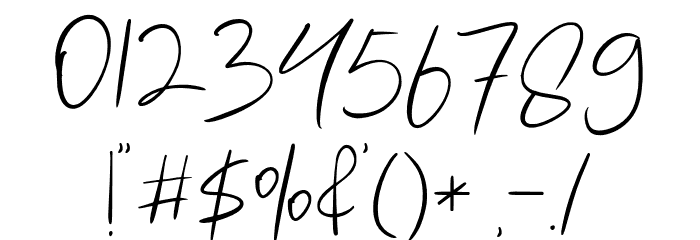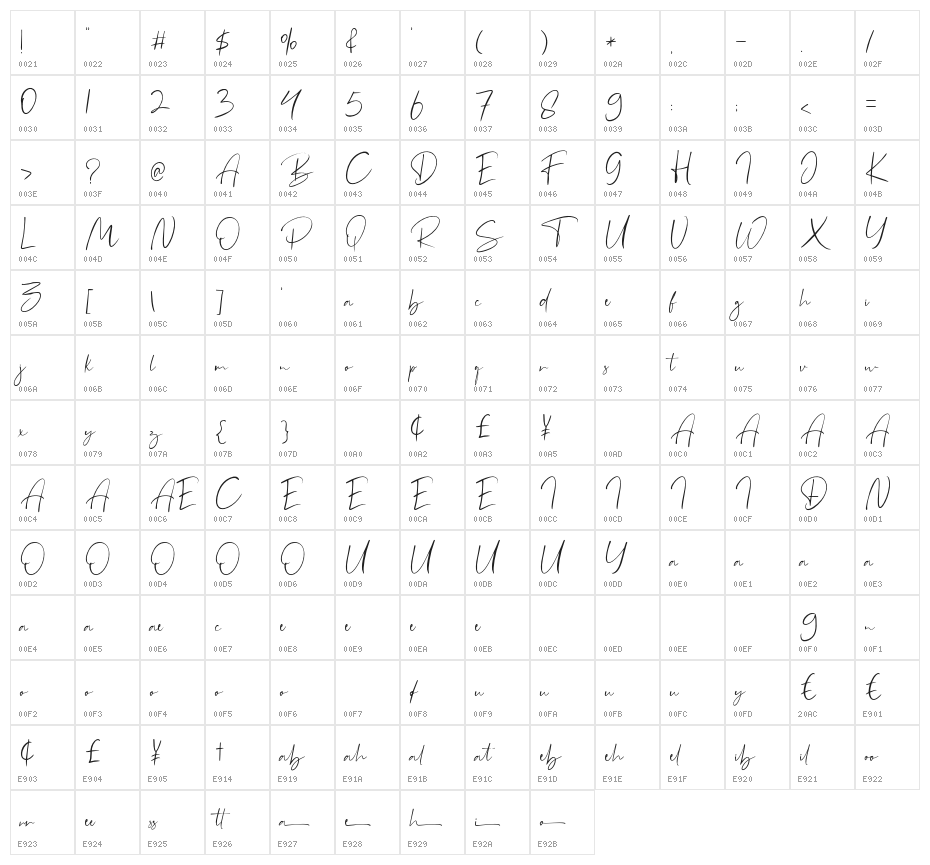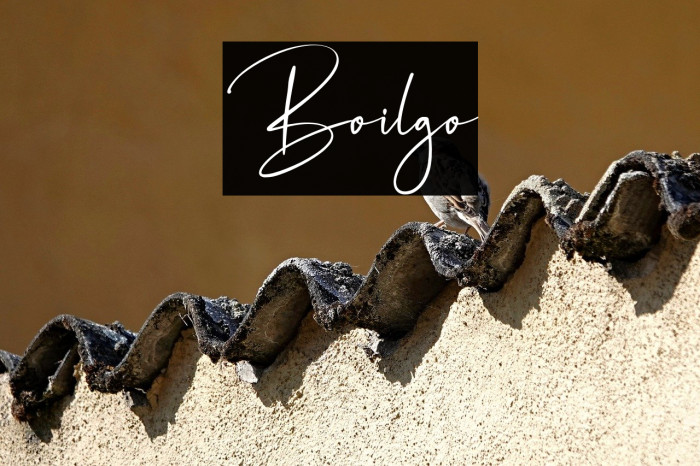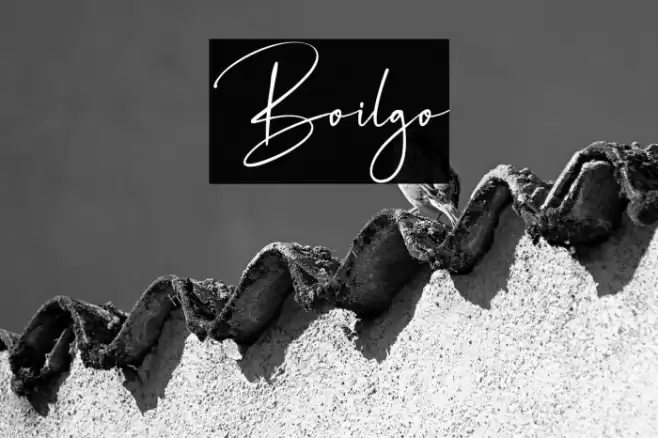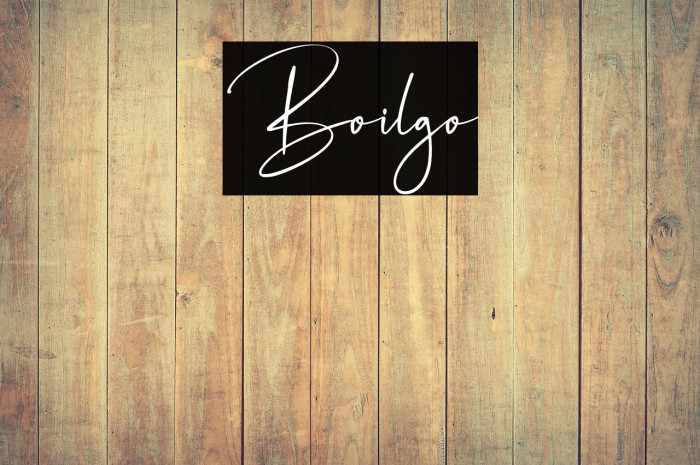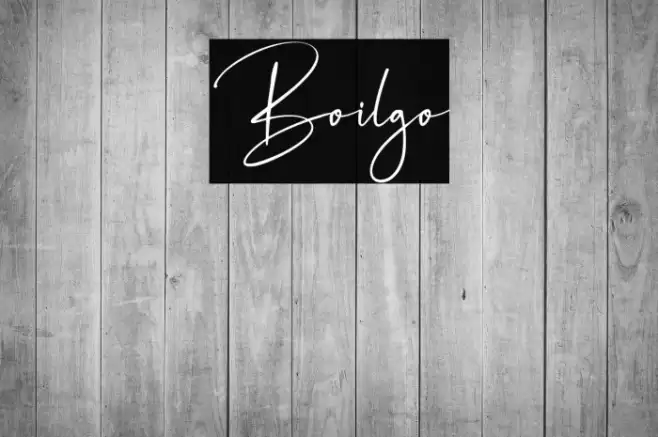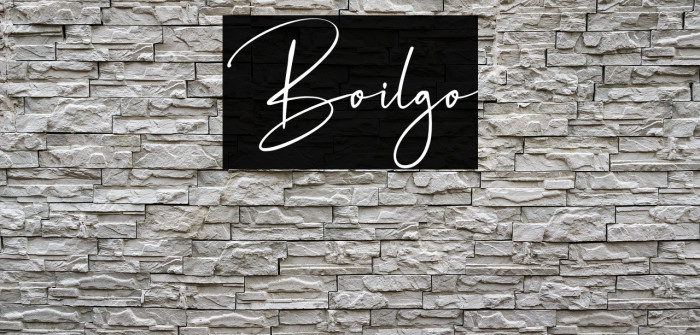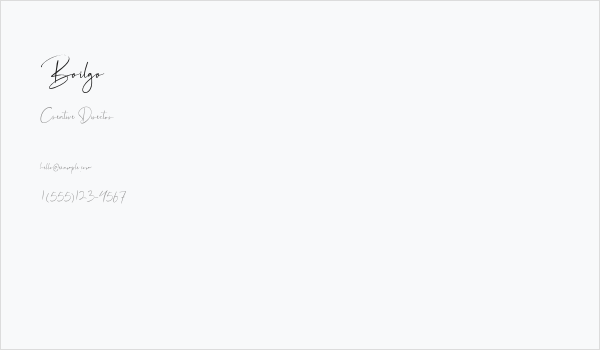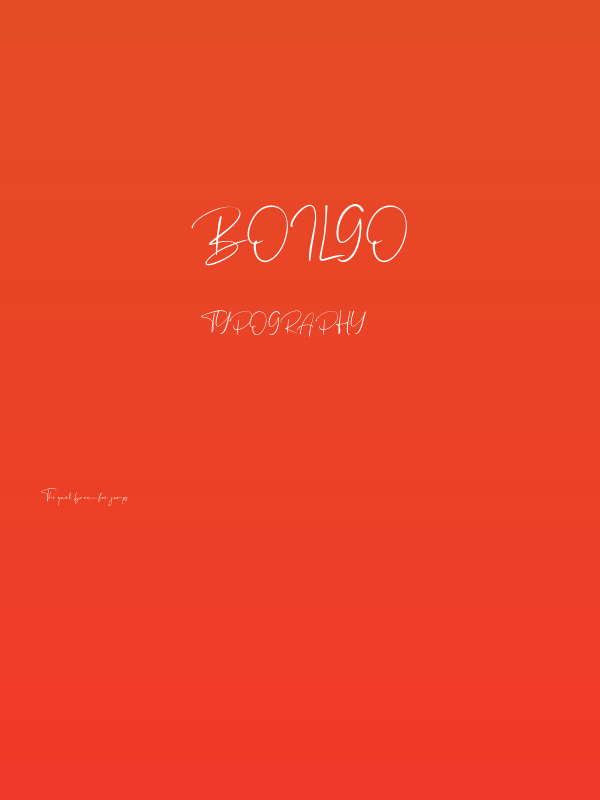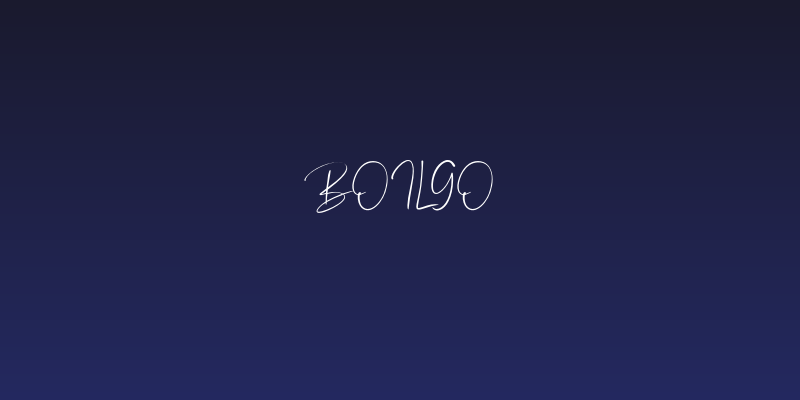
Boilgo Font
Boilgo Description
This font features a dynamic and flowing script style, characterized by its elegant and fluid letterforms. The uppercase letters exhibit a graceful, sweeping motion with a slight slant, giving them a sense of movement and sophistication. The lowercase letters continue this fluidity with smooth, connected strokes that enhance readability while maintaining an artistic flair. The numerals are designed with a similar aesthetic, ensuring consistency throughout the font. Special characters are thoughtfully crafted to match the overall style, making this font versatile for various applications. Its handwritten appearance adds a personal touch, making it suitable for creative projects that require a humanistic and approachable feel.